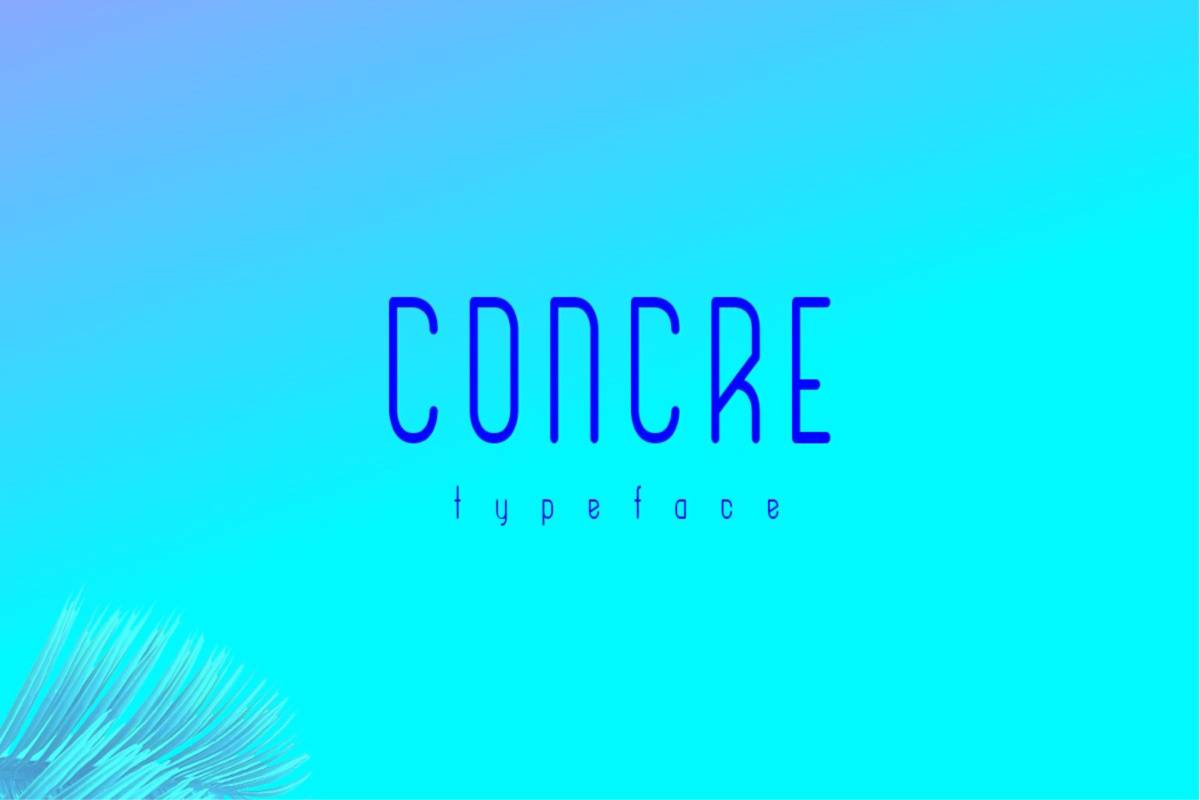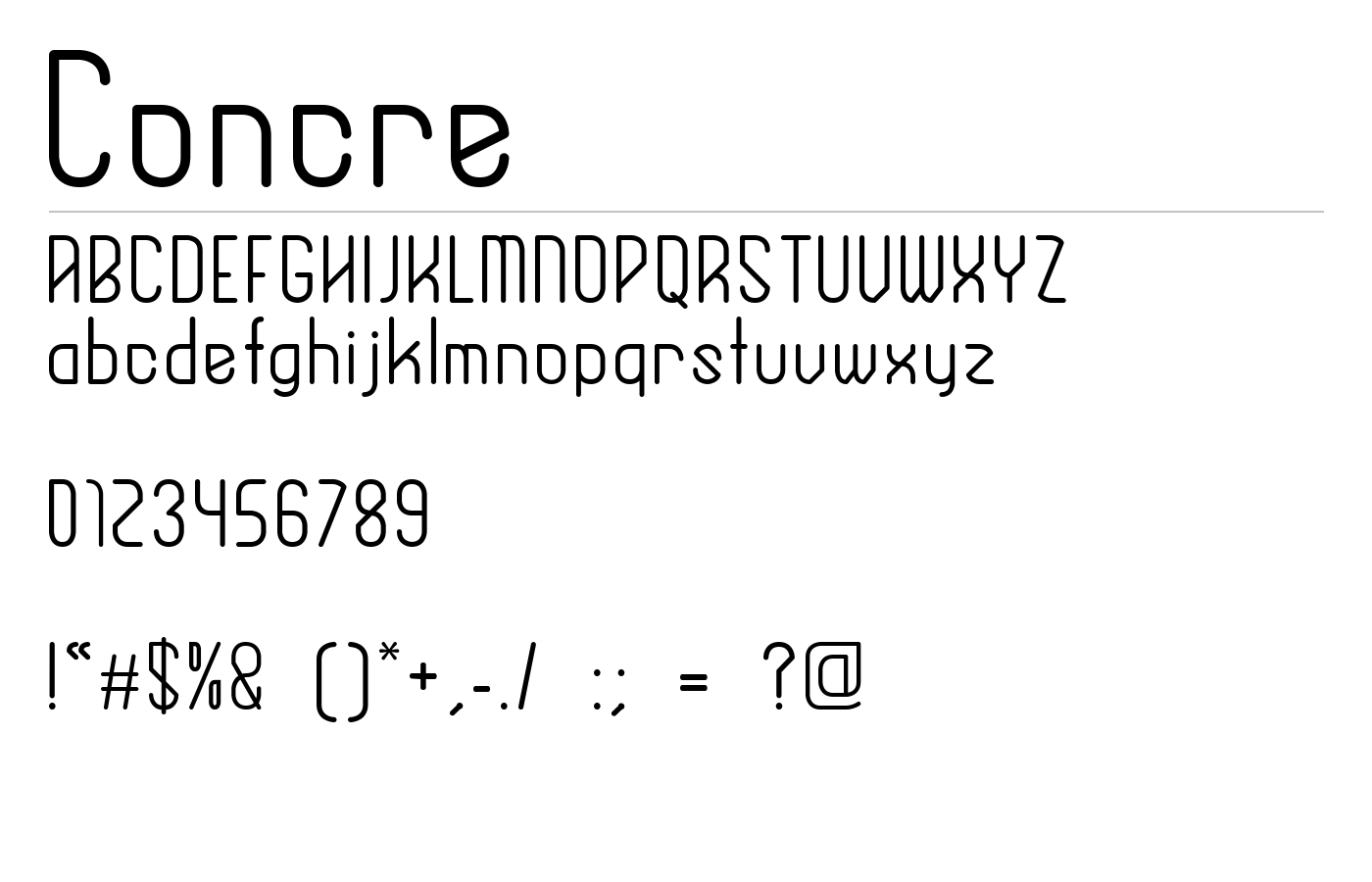
Concre is a modern, narrow sans-serif font with a sleek and minimalistic design characterized by tall, rounded letterforms and consistent thin strokes. Its clean, geometric style and uniform weight make it highly suitable for contemporary branding, digital interfaces, and editorial headlines where clarity and a touch of sophistication are desired. This font works well for projects seeking a futuristic yet approachable vibe, especially in tech, fashion, and creative industries.
Concre
About Concre